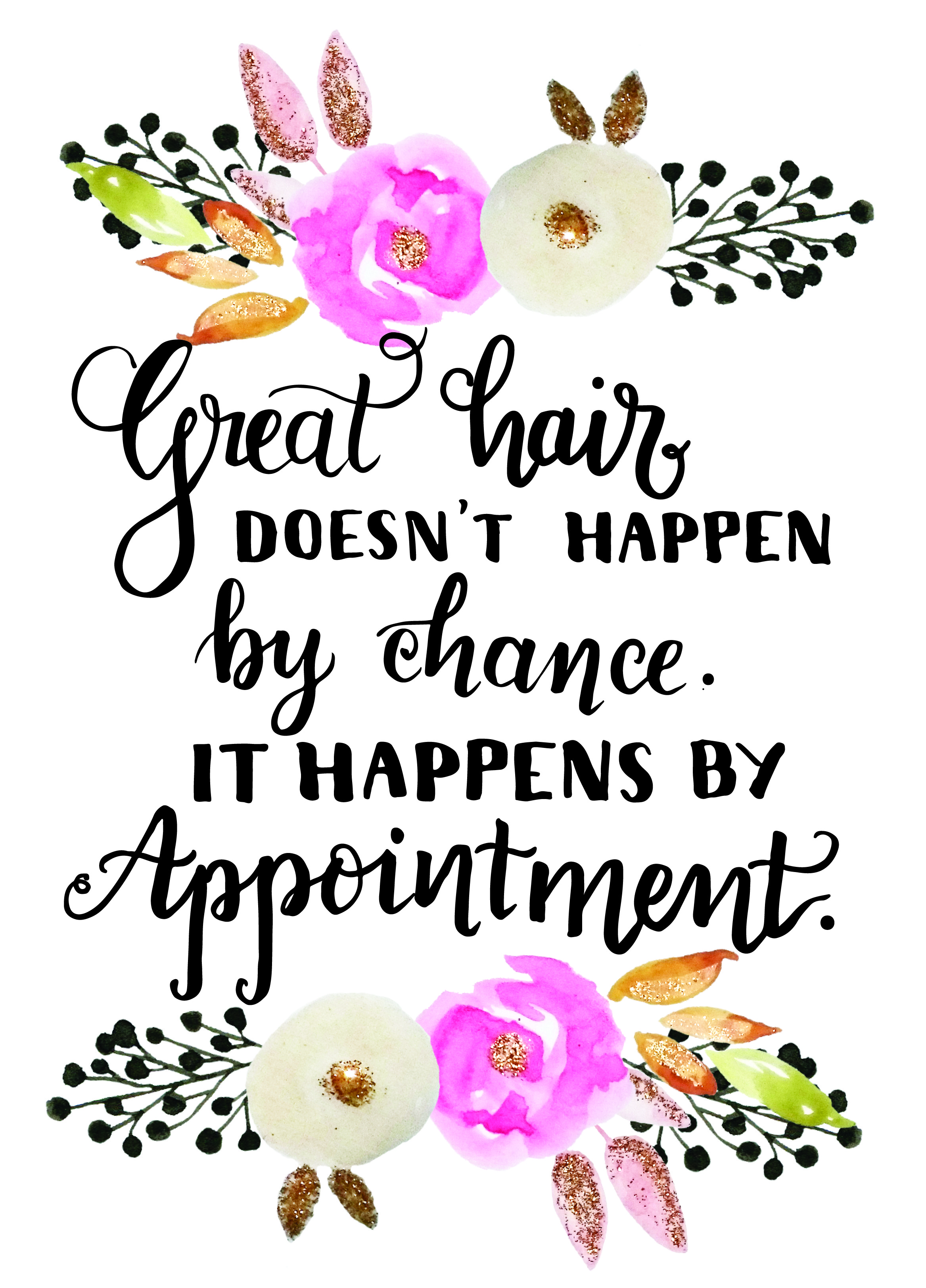
I need both fonts here
It’s a great quote btw - Vidal Sassoon I believe.
Script looks close to Drina.
Is it not hand lettering? It looks like it to me.
I too think this is handwritten. Not one letter is identical.
Definitely hand done. Sometimes there are OpenType stylistic sets in fonts where a second or third set of alternate glyphs are available. This provides variety in handwritten fonts, but I don’t think that’s the case with either one of these since, as RKK noted, “not one letter is identical.” It’s always nice to run into genuine handwritten type instead of a typeface made to simulate it.
I agree most likely hand lettering, but a close match could be Amastery with different glyphs.